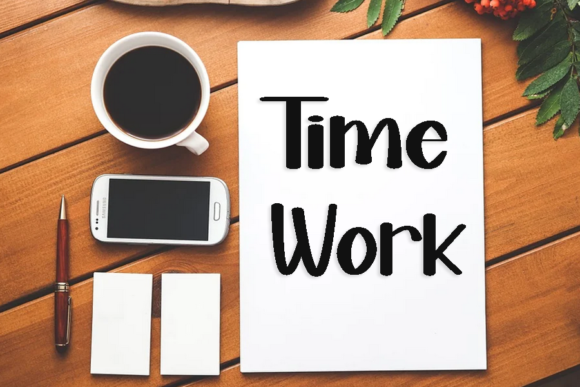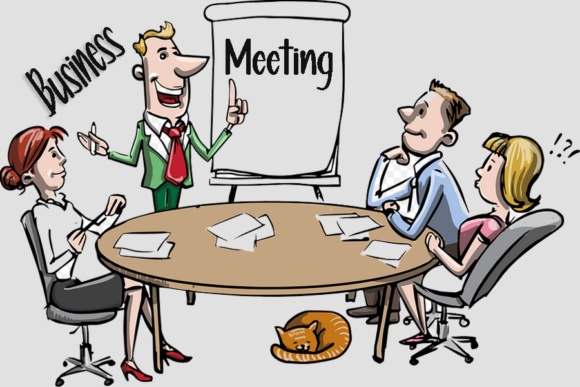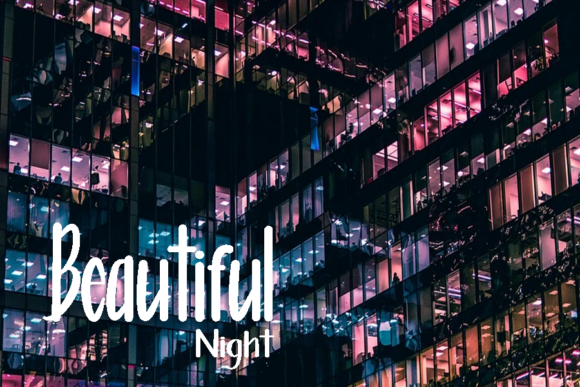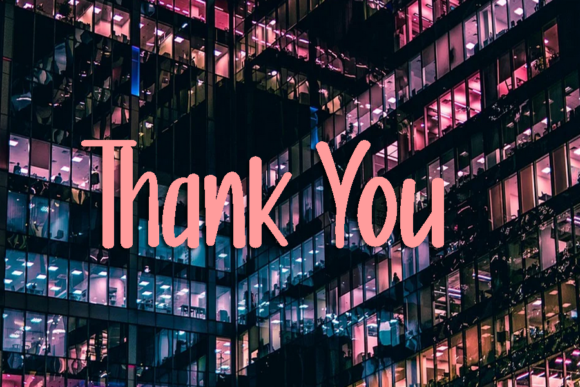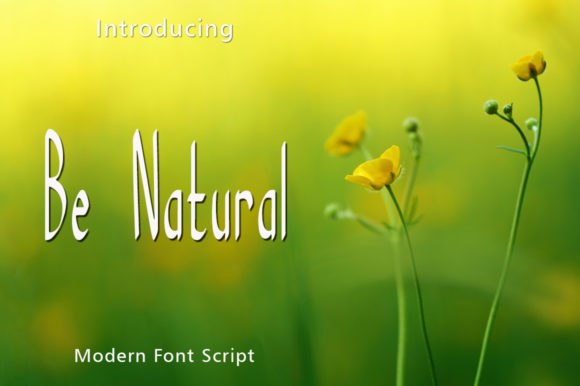
House Font
About House Font
House is a thin lettered and simple script font. Fall for its ravishing style and use it to create gorgeous wedding invitations, beautiful stationary art, eye-catching social media posts, and much more! This font is PUA encoded which means you can access all of the amazing glyphs and ligatures with ease!